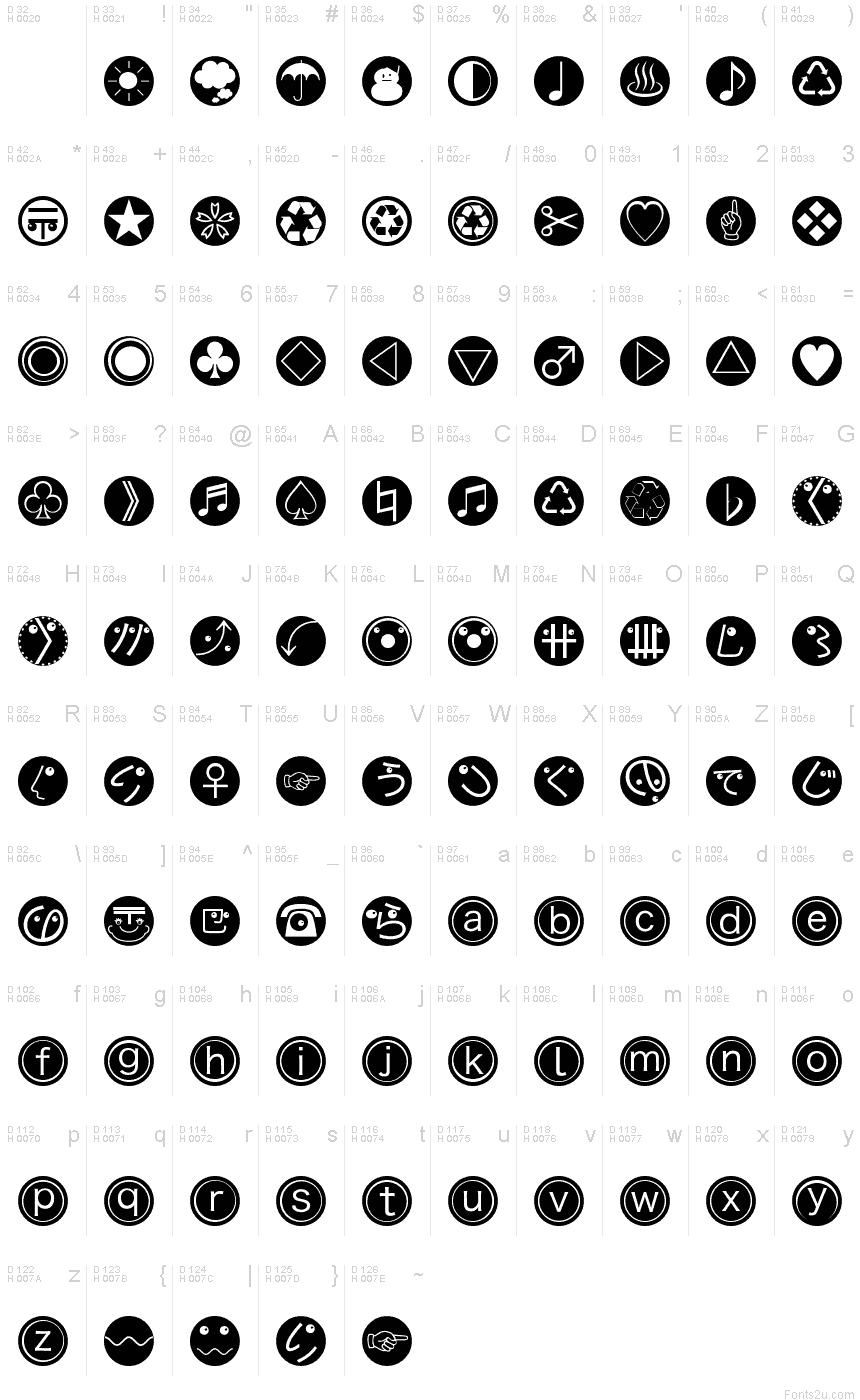
MKBats
MKBats font by Manfred Klein is a free dingbat typeface with a mixed set of round badge-like symbols, including a simple face, a curved arrow, and a few enclosed graphic marks. The shapes rely on strong circles, spare cutouts, and clear single-line forms, so the set feels more like a compact icon system than a lettered font.
MKBats is a free font that fits labels, web icons, stickers, wayfinding marks, and playful posters where small symbols need to read quickly. Its simple pictograms and enclosed forms also work well in craft projects, signage accents, and editorial side notes because the motifs stay direct and easy to recognize at a glance.